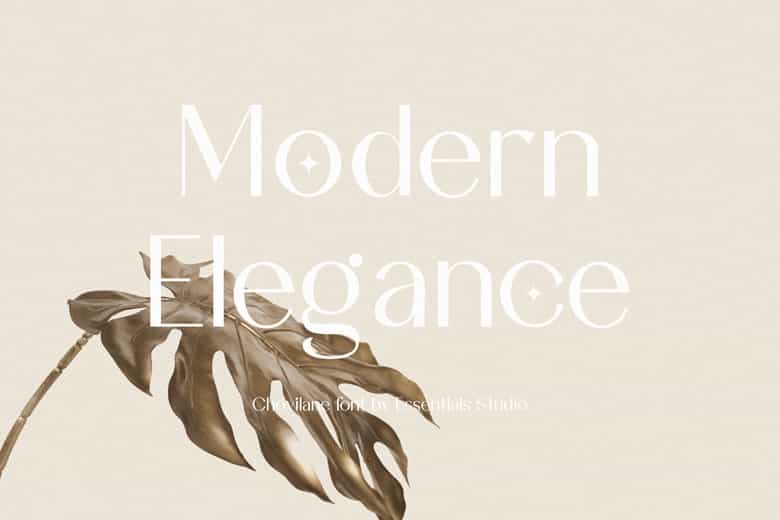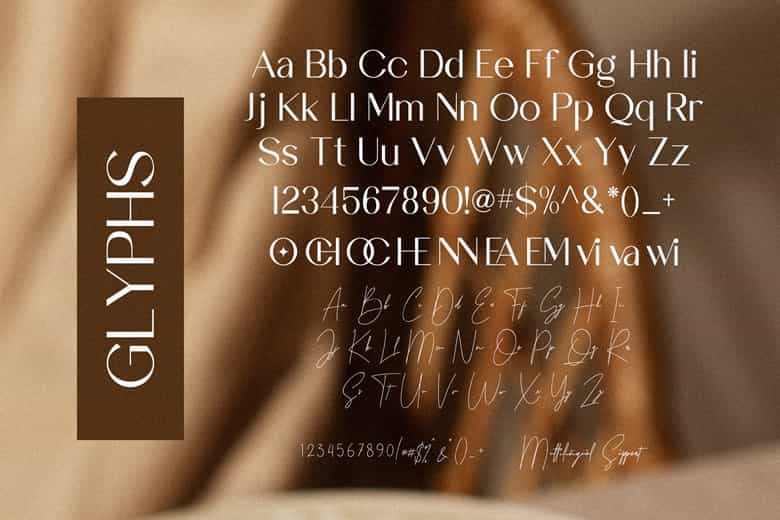
Discover Chovilane Font, part of the Sans Serif collection—a versatile and unique font perfect for adding a personal touch to your projects. Download it for free and enjoy crafting designs with style, from invitations to social media posts. This font is available exclusively for personal use, giving you the freedom to create without limits. Unlock your creativity with Chovilane Font today!
The Chovilane Signature Austine is a two in one font that combines the elegance of both Sans and signature looks. Created by Essentials Studio this font is a perfect choice for adding elegance to your wedding cards, imparting charm to your products or brands, or even enhancing your social media posts.